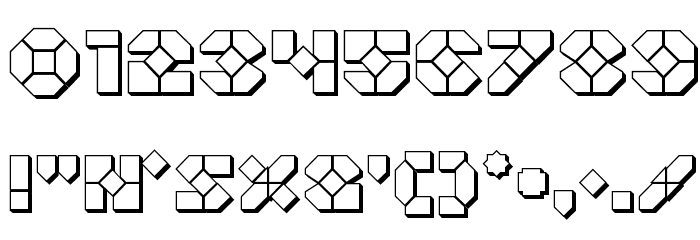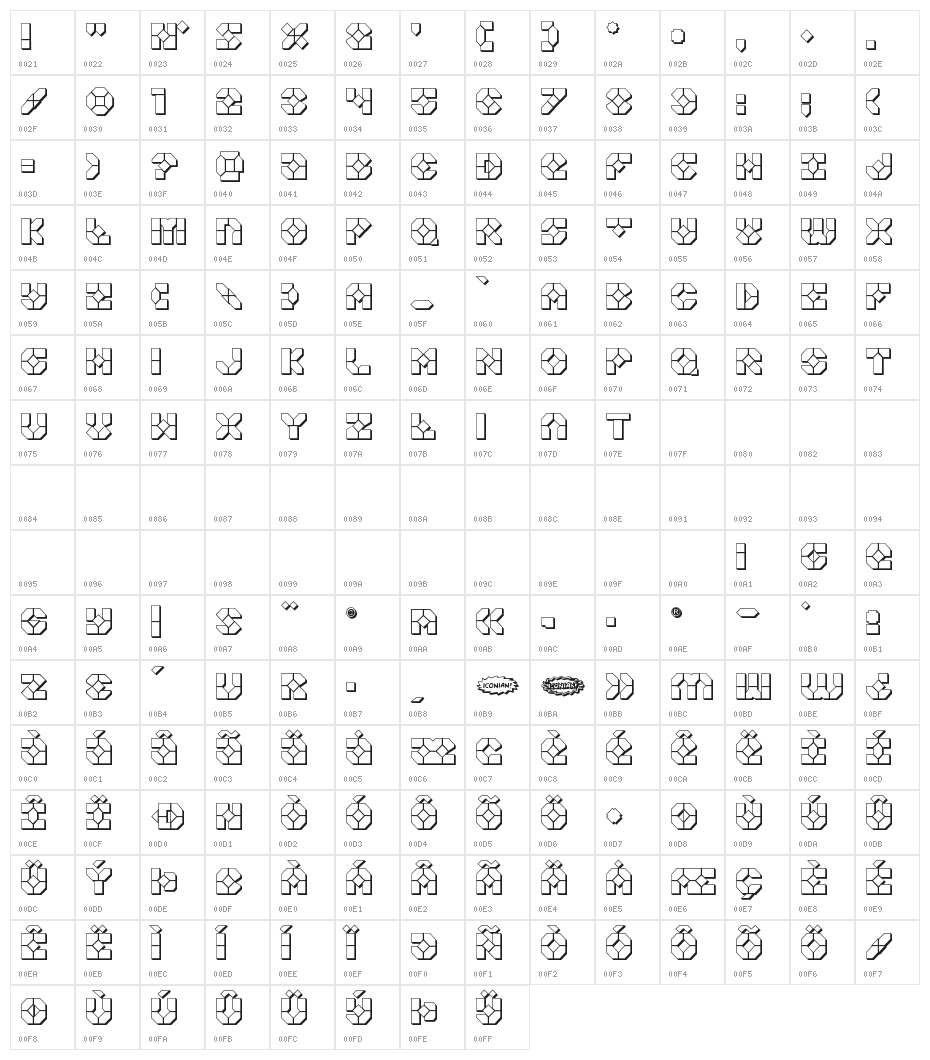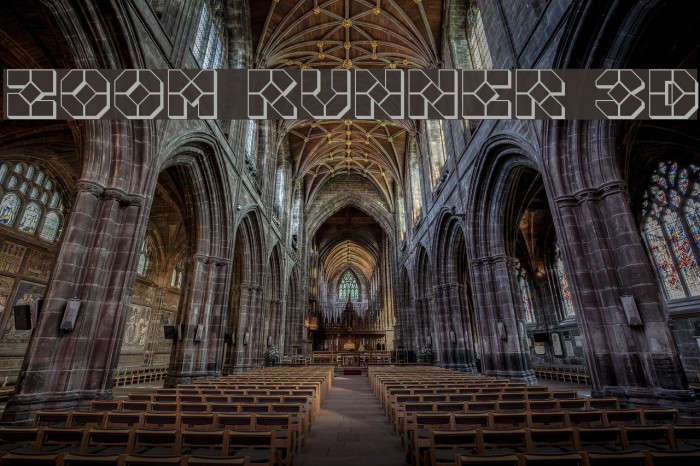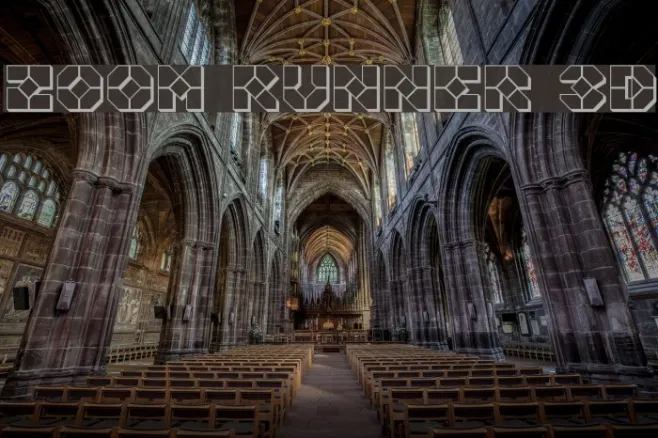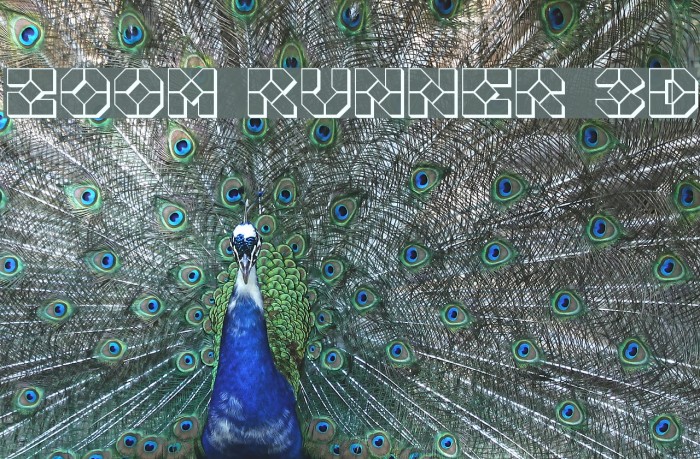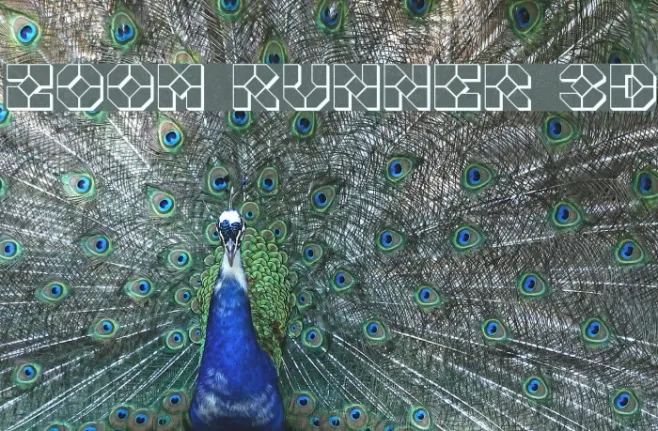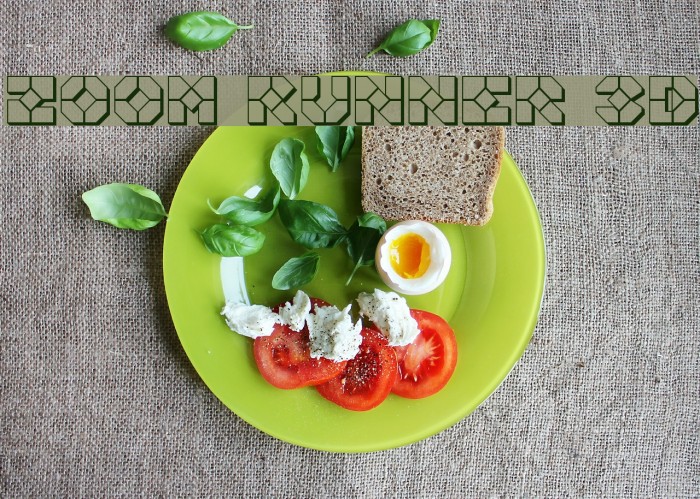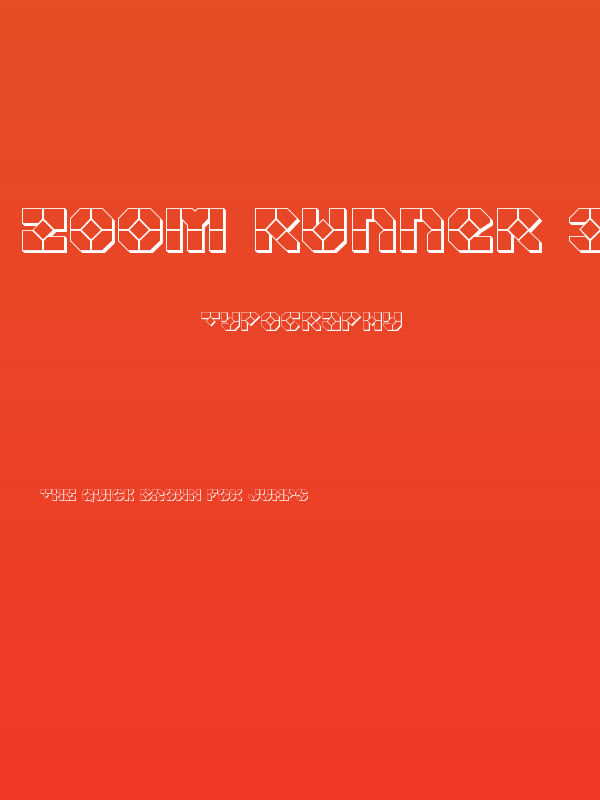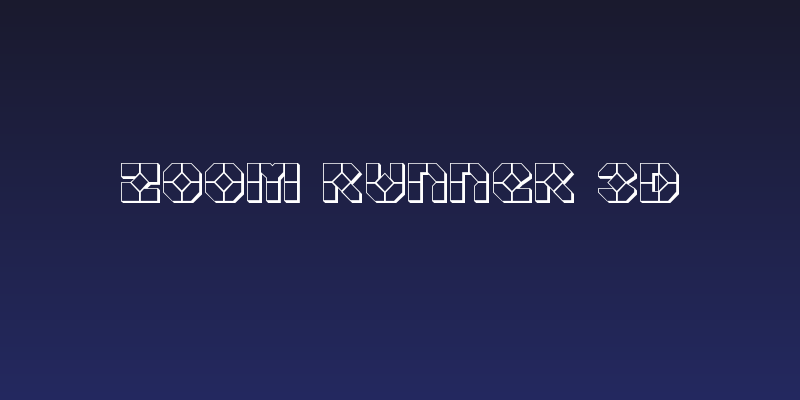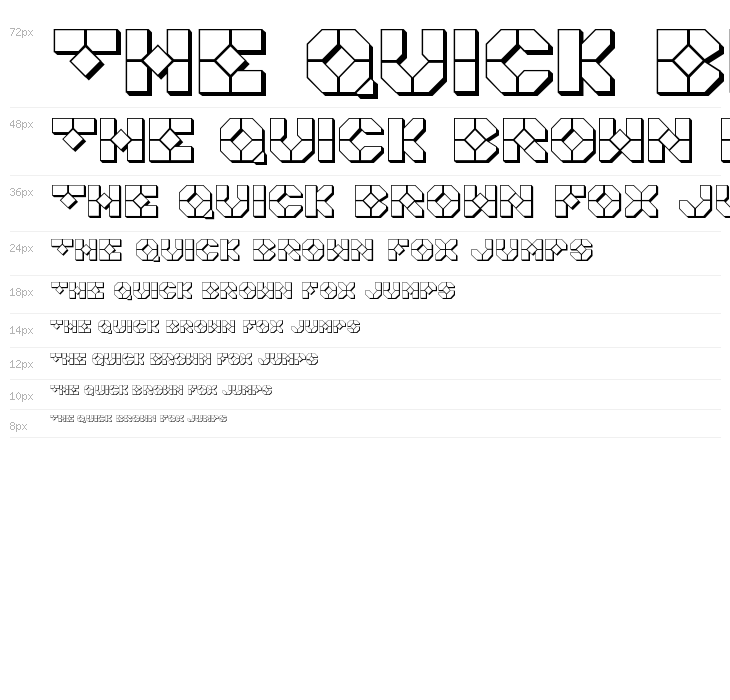
Zoom Runner 3D Font
Zoom Runner 3D Description
This font features a unique geometric design with a three-dimensional effect, creating an illusion of depth and structure. Each character is composed of bold, interconnected shapes that form a cohesive and visually striking appearance. The use of thick outlines enhances the 3D effect, making the characters stand out prominently. The font maintains a consistent style across uppercase, lowercase, numerals, and special characters, ensuring uniformity and balance. Its modern and innovative design makes it suitable for projects that require a futuristic or tech-inspired aesthetic.
| Proposed Projects | Ideal for video game titles, tech branding, futuristic posters, and digital media projects. |